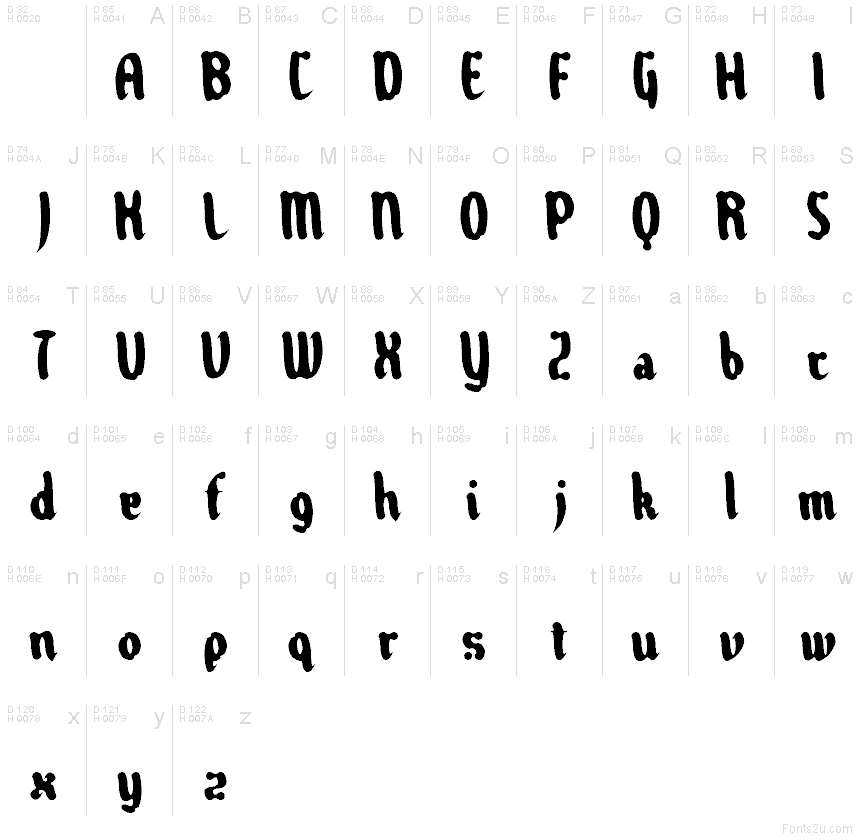
CSNelsonDrawn-Regular Demo
CS Nelson Drawn font by Craft Supply Co. is a vintage display font with a retro feel and casual style. Beautiful brush-like strokes inspired by the work of Aaron Sandoz build this fantastic nostalgic piece. The font has an organic flow to it and a tendency toward a condensed formation.